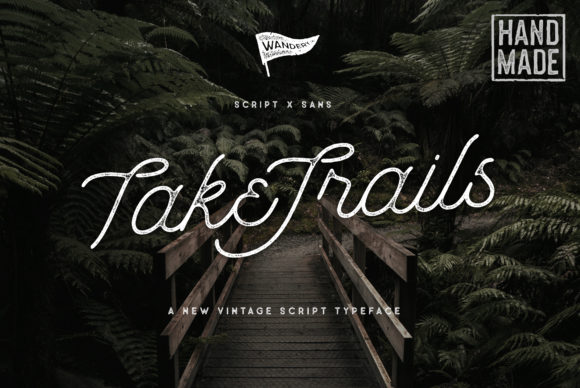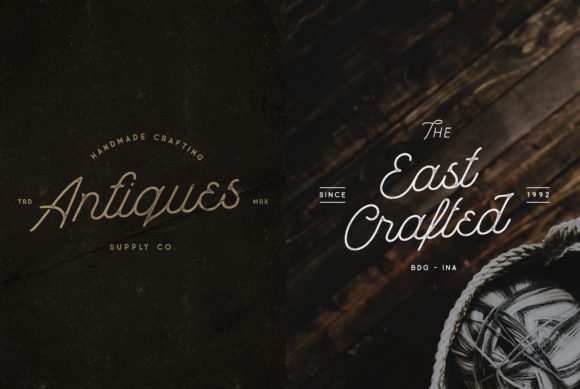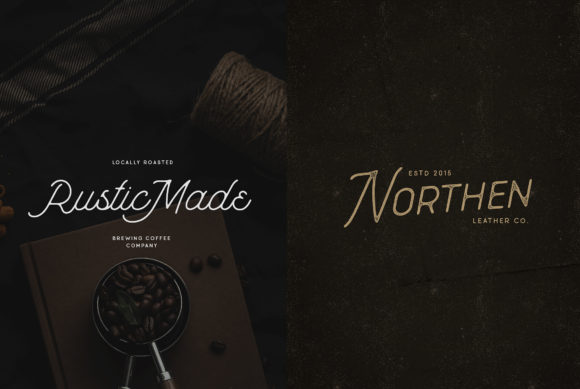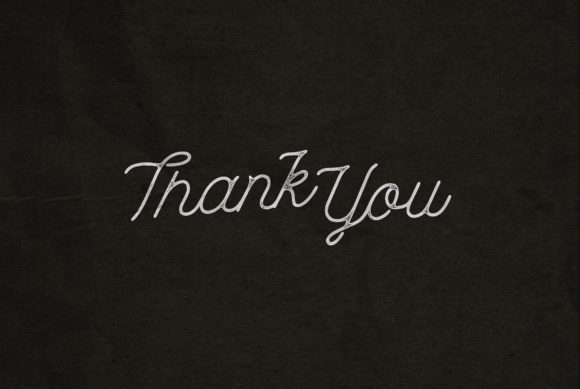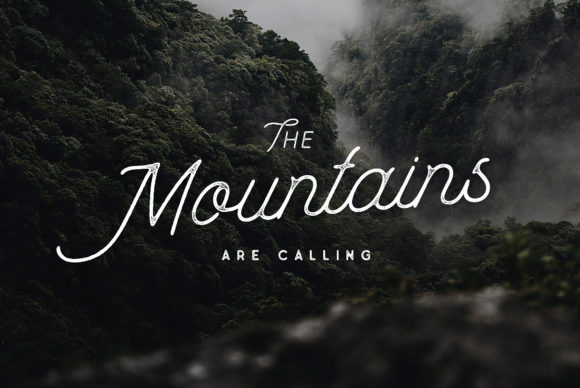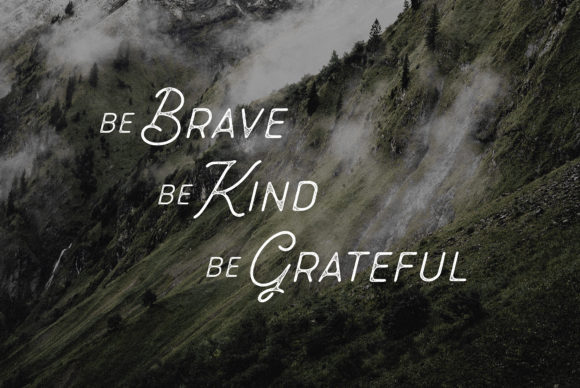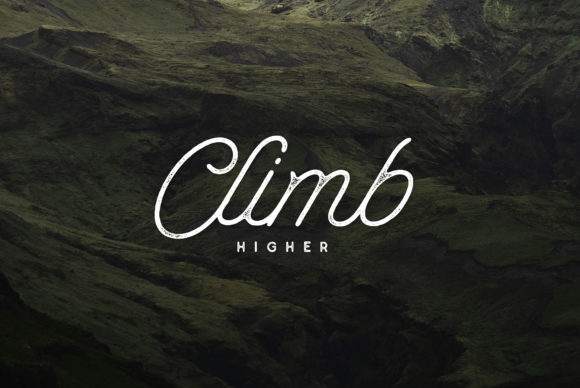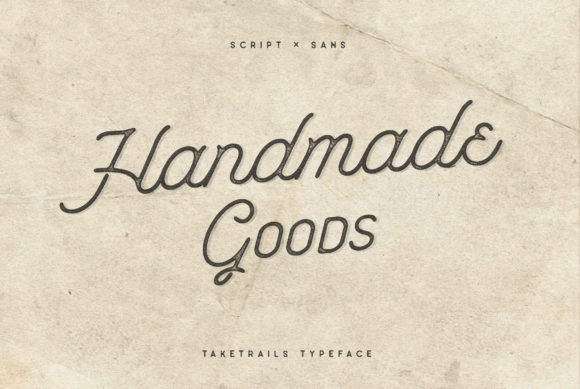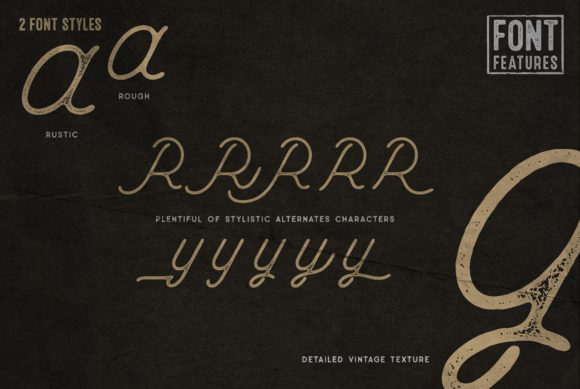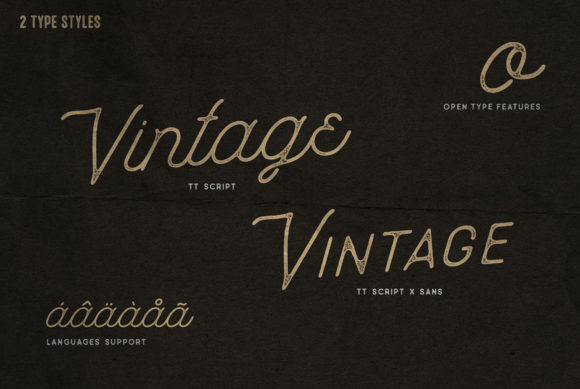
Take Trails Font
About Take Trails Font
Take Trails is a handcrafted script vintage font. It features rounded rough edges and inked style, and it has a classic and vintage feel.
Take Trails will look outstanding in any context, whether it’s being used on busy backgrounds or as a standalone headline!